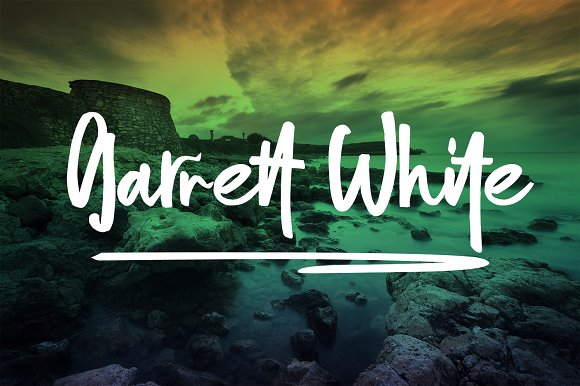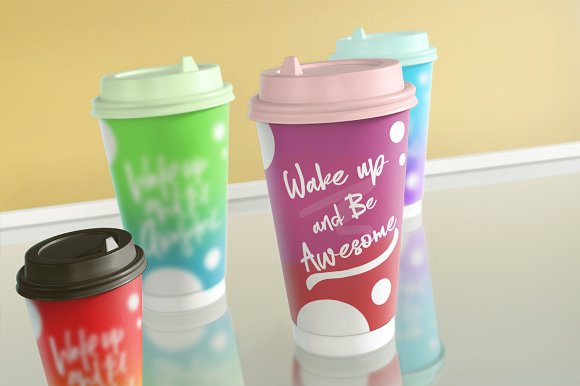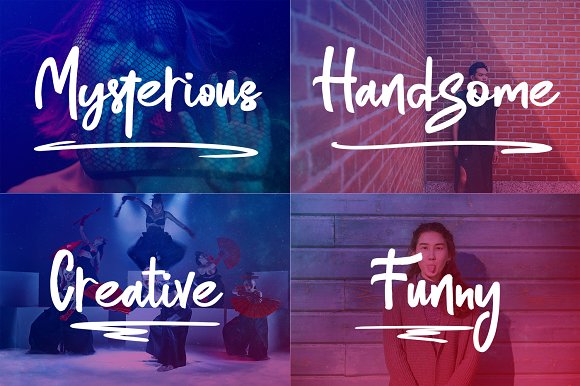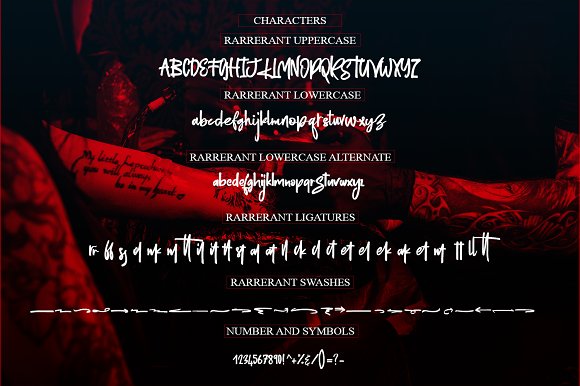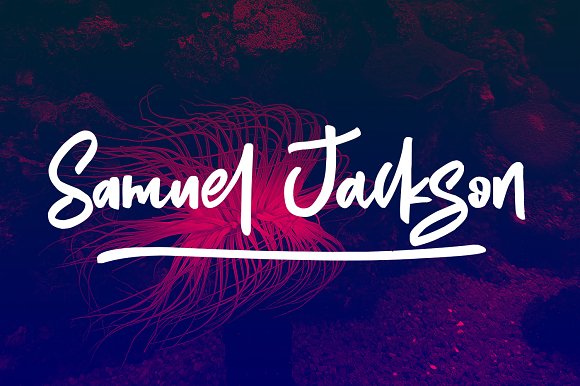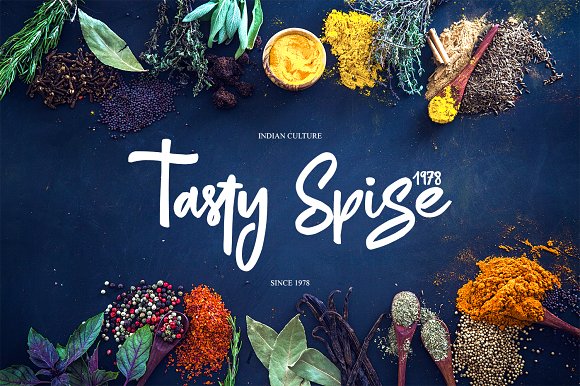
Rarrettant Font
Let me introduce you the font ”Rarretant Script. It really shows the art of hand-work. It is very legible even though its nature looks like it has extreme lines. It is really unique in this regard.